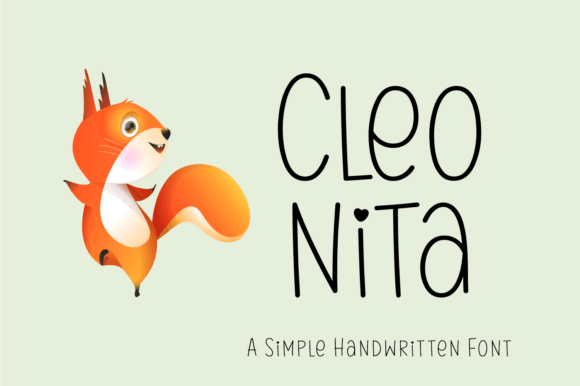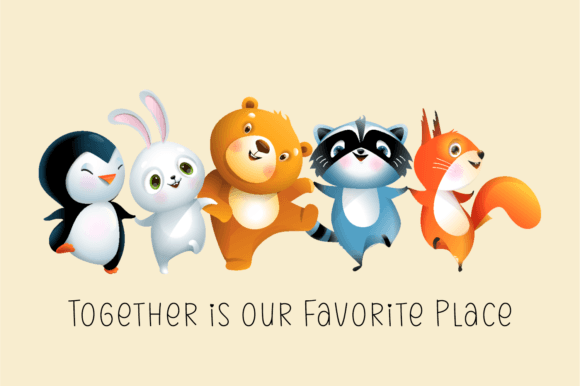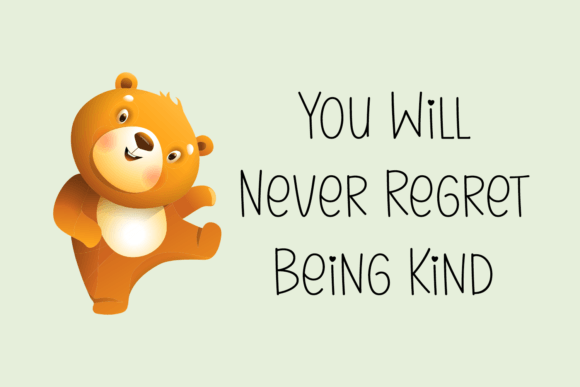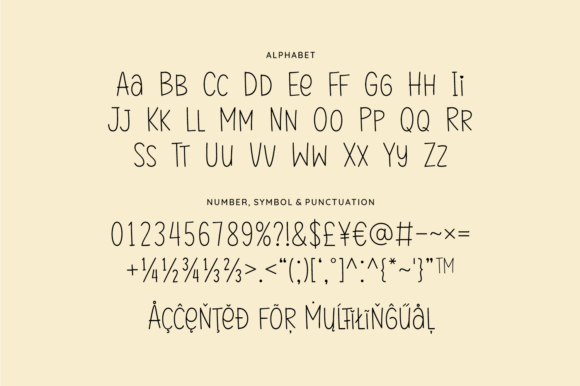
Cleo Nita Font
The Cleo Nita Font Download is a thin and minimalist handwritten script designed to bring simplicity and elegance to your projects. With delicate strokes and a refined rhythm, it delivers clarity and beauty without unnecessary detail. Because of its versatile design, Cleo Nita is perfect for websites, cards, magazines, posters, packaging, and invitations, offering designers a modern tool for clean and stylish creations.
A Thin Handwritten Script with Minimalist Charm
Cleo Nita combines a contemporary handwritten style with a minimalist design approach. Unlike heavy or overly decorative fonts, this Cleo Nita script font emphasizes lightness, subtlety, and clarity. As a result, it is an excellent choice for projects where simplicity and elegance must stand out.
Perfect for Invitations and Stationery
Minimalist fonts add sophistication to event stationery. The Cleo Nita Font works beautifully for wedding invitations, thank you notes, greeting cards, and business stationery. Moreover, its delicate handwritten strokes give each project a refined and modern character.
Branding and Packaging with Cleo Nita Font
Typography strongly influences branding, and the Cleo Nita handwritten font is a perfect fit for clean product packaging, boutique logos, and promotional materials. In addition, its thin, graceful lines create a sleek brand personality that appeals to contemporary audiences.
Posters, Magazines, and Creative Displays
The Cleo Nita Font Download is highly effective for posters, magazine titles, and editorial layouts. Therefore, it adapts easily to both print and digital designs, making it a versatile typeface for creative professionals.
Digital Design and Websites
In the digital space, fonts must balance readability with style. The Cleo Nita typeface integrates seamlessly into websites, blogs, and social media content. Its minimalist handwritten form makes text visually appealing while maintaining clarity.
Why Designers Choose Cleo Nita Typeface
Designers appreciate fonts that provide elegance without distraction. Many handwritten scripts become too bold or decorative, but the Cleo Nita handwritten script stays thin, modern, and versatile. This makes it ideal for professionals seeking a minimalist and elegant solution.